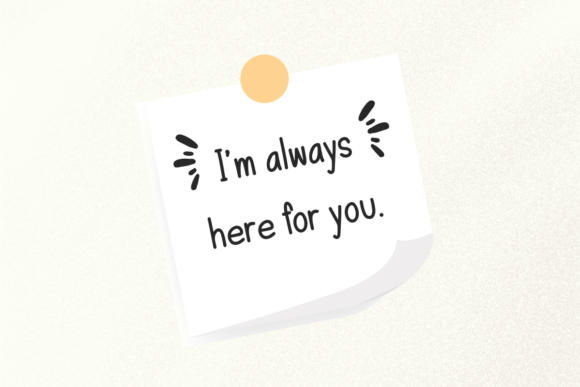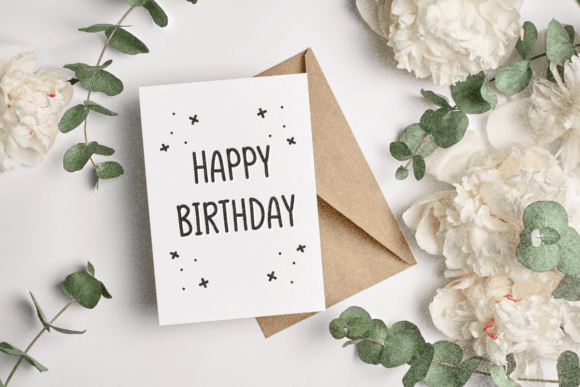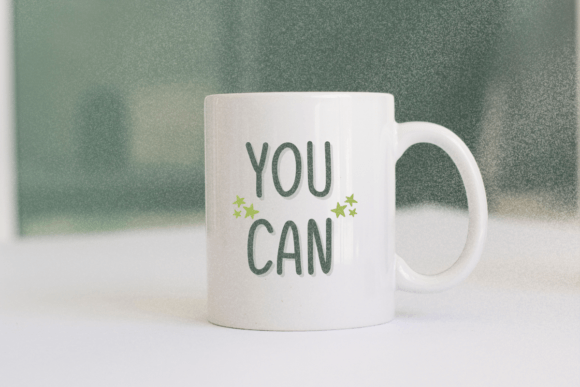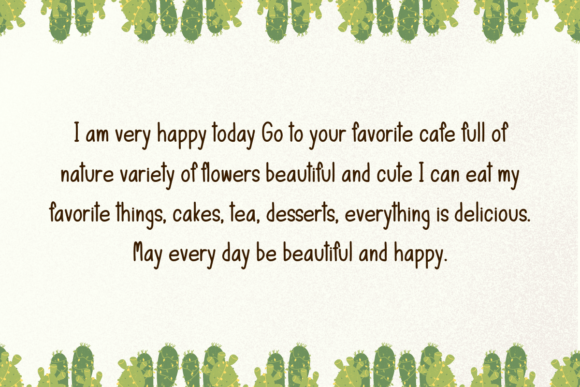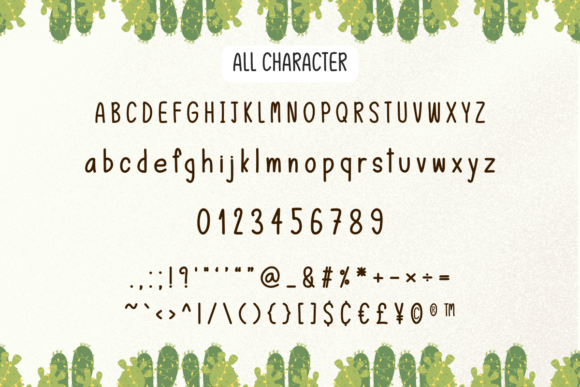
Introduction to Lazy Day Font
Lazy Day is a simple and cute handwritten font.
Key Features of Lazy Day Font
Why Choose Lazy Day Font?
Lazy Day Font offers exceptional quality and versatility, making it a valuable addition to your design toolkit. Whether you’re creating for personal projects or commercial use, Lazy Day Font delivers professional results.